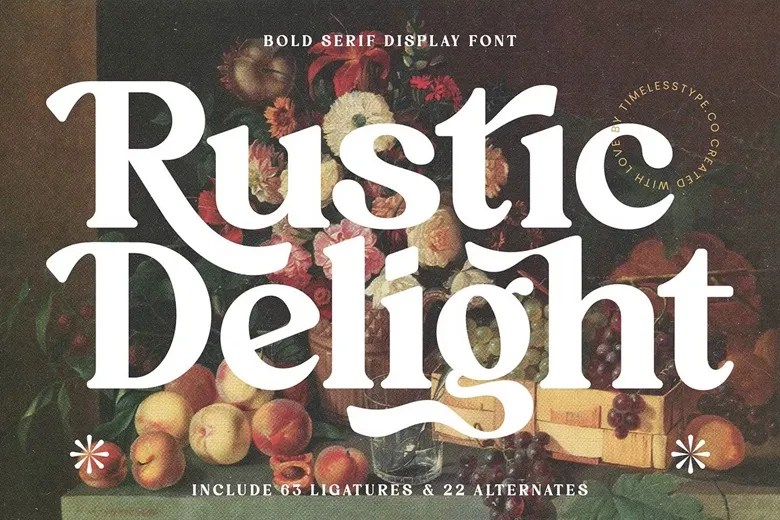
Rustic Delight Font
Rustic Delight is a bold vintage serif font inspired by Roman classic and decorative serif designs. Created by timelesstype.co, it radiates timeless charm and sophistication. Its bold style and intricate details make it an ideal choice for projects that seek a blend of elegance and tradition.
This font is versatile and suitable for logos, branding projects, homeware designs, product packaging, mugs, quotes, posters, t-shirts, book covers, and much more. Whether you’re designing for special events, invitations, or luxurious aesthetics, Rustic Delight delivers a touch of classic refinement.